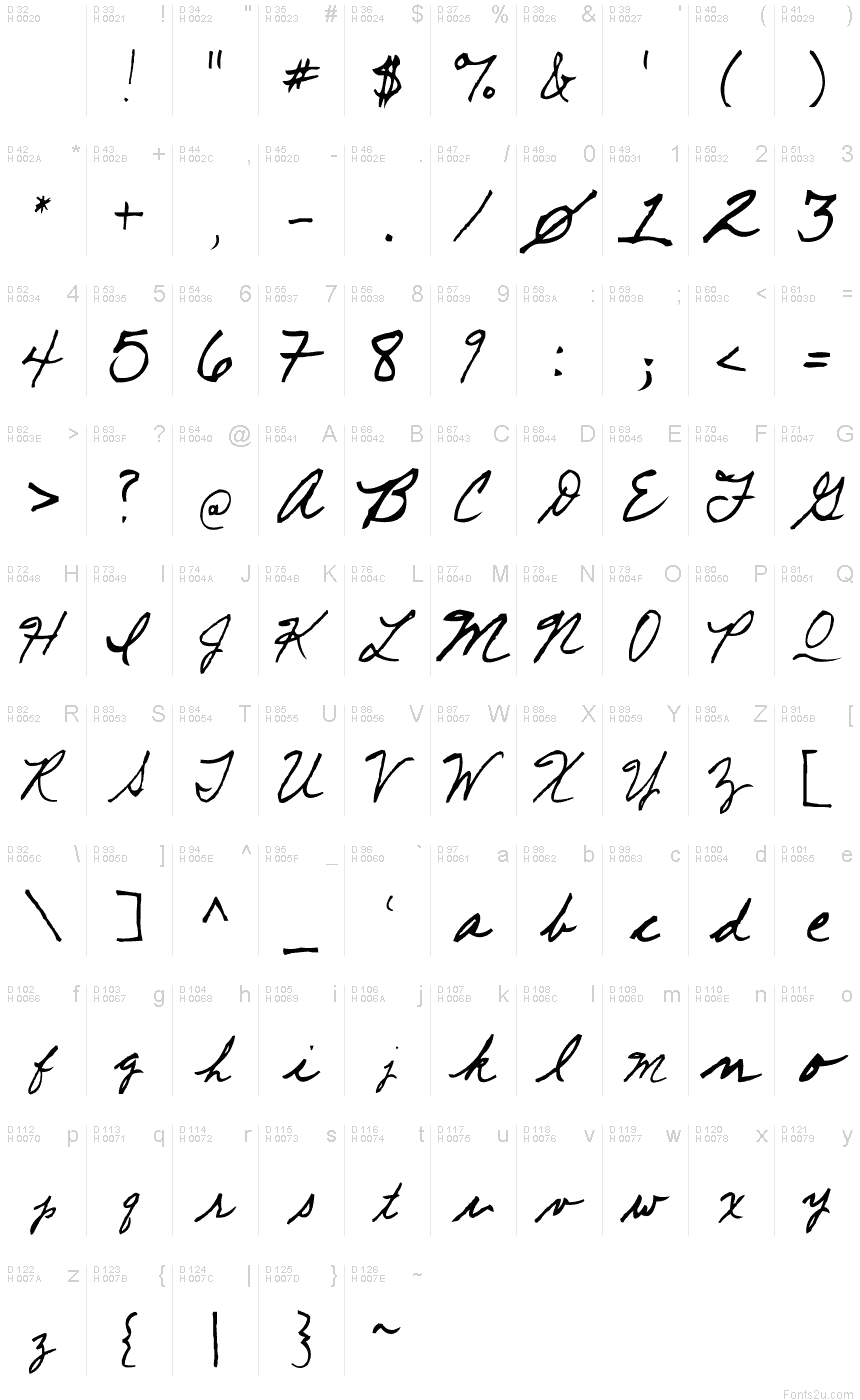
I Used to Have a Crush On You
I Used to Have a Crush On You font by Jere Chandler and Candra K. Gill is a free handwritten script typeface that feels like a confession scribbled in the margins of a notebook. Loose, tangled strokes swing dramatically from thick to thin, giving each word a breathless, slightly messy energy-like a rushed love note you never meant to send. The inky, uneven rhythm keeps it human and vulnerable rather than polished and prim.
Using I Used to Have a Crush On You, your text instantly reads as personal and emotional, not generic. This free font shines on breakup or love-themed posters, moody song lyrics, journal pages, social media quotes, greeting cards, and album art. Set it large for titles and pair with a quiet sans serif for small supporting text so its raw, hand-scrawled character can really spill across the page.
I Used to Have a Crush On You by Jere Chandler and Candra K. Gill